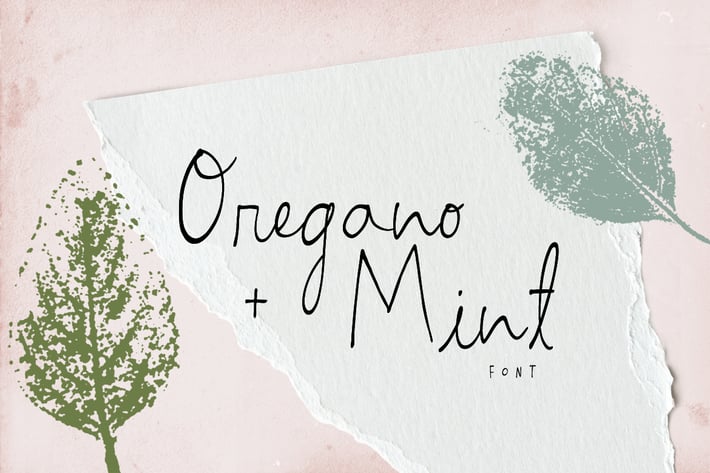
Oregano and Mint Font Trio
Oregano and Mint is a beautiful feminine font family with a sweet handwriting style. Create quotes, business cards, wedding invitations, greeting cards or social media posts with a modern feel. All 3 fonts are designed to work perfectly together!
- Oregano and Mint Regular: the script font
- Oregano and Mint Skinny: perfect to combine with the script or as is
- Oregano and Mint Small**: looks great in logos, as a tagline or for product descriptions